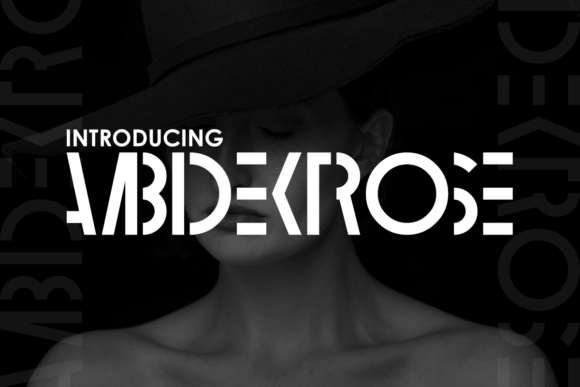
Introducing Ambidextrose Font: The Ultimate Typeface for Striking Designs
Are you tired of using the same old fonts in your designs? Look no further than Ambidextrose, a unique typeface that’s perfect for any project that needs a striking and eye-catching element. In this article, we’ll dive into the world of Ambidextrose font, exploring its features, benefits, and uses, as well as provide tips and inspiration for designers and crafters.
What is Ambidextrose Font?
Ambidextrose is a distinctive typeface that stands out from the crowd. Its unique design makes it perfect for headlines, titles, and any other text that needs to grab attention. With its bold and striking appearance, Ambidextrose is sure to elevate your designs and make them more engaging.
Key Features of Ambidextrose Font
- Unique Design: Ambidextrose has a one-of-a-kind design that sets it apart from other typefaces.
- Bold and Striking: This font is perfect for making a statement and grabbing attention.
- Versatile: Ambidextrose can be used in a variety of design projects, from posters and flyers to logos and branding.
- Easily Readable: Despite its bold design, Ambidextrose is easy to read, making it perfect for body text as well as headlines.
Benefits of Using Ambidextrose Font
So why choose Ambidextrose font for your next design project? Here are just a few benefits of using this unique typeface:
- Adds Visual Interest: Ambidextrose adds a touch of personality and visual interest to your designs, making them more engaging and shareable.
- Enhances Branding: With its bold and striking appearance, Ambidextrose can help take your branding to the next level and make your business stand out.
- Perfect for Creative Projects: Whether you’re working on a poster, flyer, or social media graphic, Ambidextrose is the perfect font for adding a creative touch.
Tips for Using Ambidextrose Font
Here are a few tips for getting the most out of Ambidextrose font:
- Use it Sparingly: Because Ambidextrose is such a bold font, it’s best to use it sparingly to avoid overwhelming your design.
- Pair it with a Simple Font: Pair Ambidextrose with a simple font for body text to create visual interest and hierarchy in your design.
- Experiment with Colors: Ambidextrose looks great in a variety of colors, so don’t be afraid to experiment and find the perfect hue for your design.
Ambidextrose font is perfect for a wide range of design projects, from posters and flyers to logos and branding. Here are a few ideas to get you started:
- Posters and Flyers: Use Ambidextrose to create eye-catching posters and flyers that grab attention and drive results.
- Logos and Branding: Take your branding to the next level with Ambidextrose, perfect for creating bold and striking logos.
- Social Media Graphics: Add a touch of personality to your social media graphics with Ambidextrose, perfect for creating engaging and shareable content.
Ambidextrose font is a unique and versatile typeface that’s perfect for any design project that needs a striking and eye-catching element. With its bold and striking appearance, Ambidextrose is sure to elevate your designs and make them more engaging. Whether you’re a designer, crafter, or DIY enthusiast, Ambidextrose is a must-have font for adding a touch of personality and visual interest to your work.